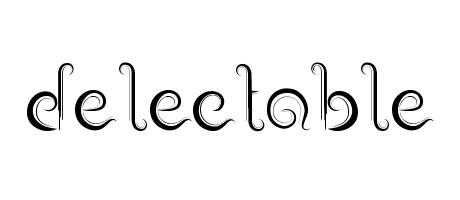
Delectable
Delectable is a whimsical, elegant serif font. Its lowercase letters possess delicate flourishes and swashes, particularly noticeable on the 'd', 'e', and 'c', adding a touch of vintage charm and sophistication. The overall effect is refined yet playful, suggesting both luxury and a sense of lightheartedness.